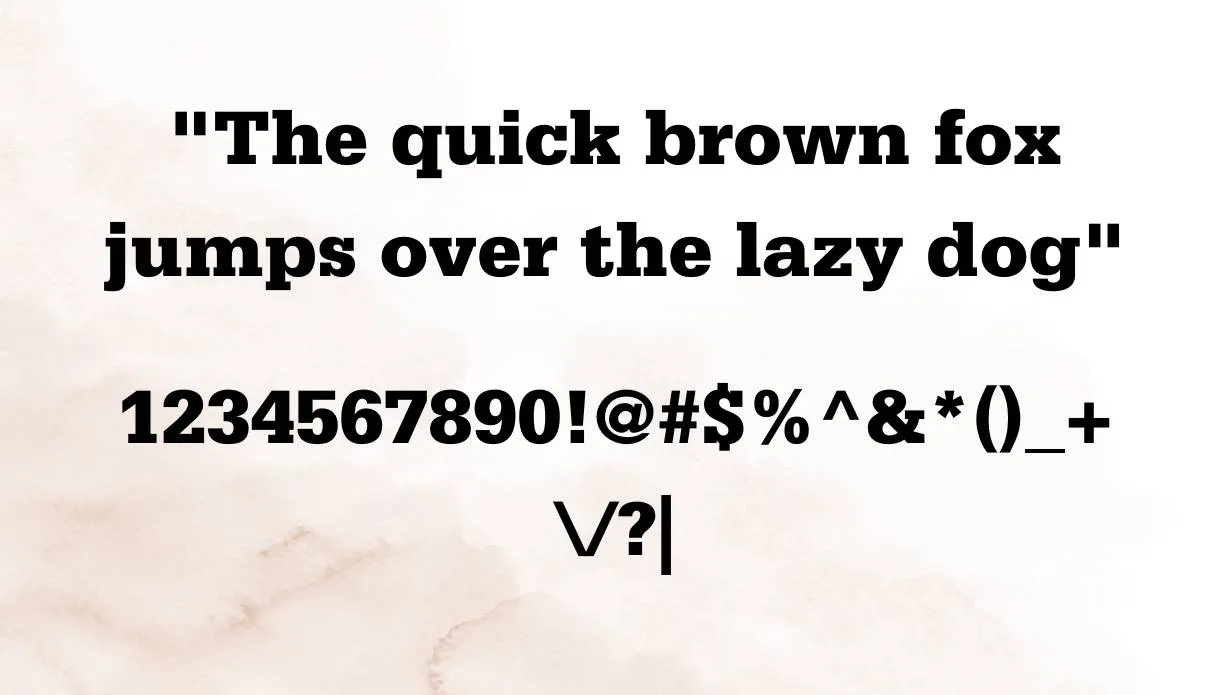
The Serifa Font is a reliable companion, known for its clarity and readability. Its straightforward characters make it like a trusted friend in design, ensuring clear communication in Adobe Photoshop graphics, providing an easy-to-read format for web content with CSS, and offering a reliable presence in MS Word documents.
| Name | Serifa Font |
| Designer | Adrian Frutiger |
This font effortlessly adapts to diverse design needs, prioritizing clarity and legibility.